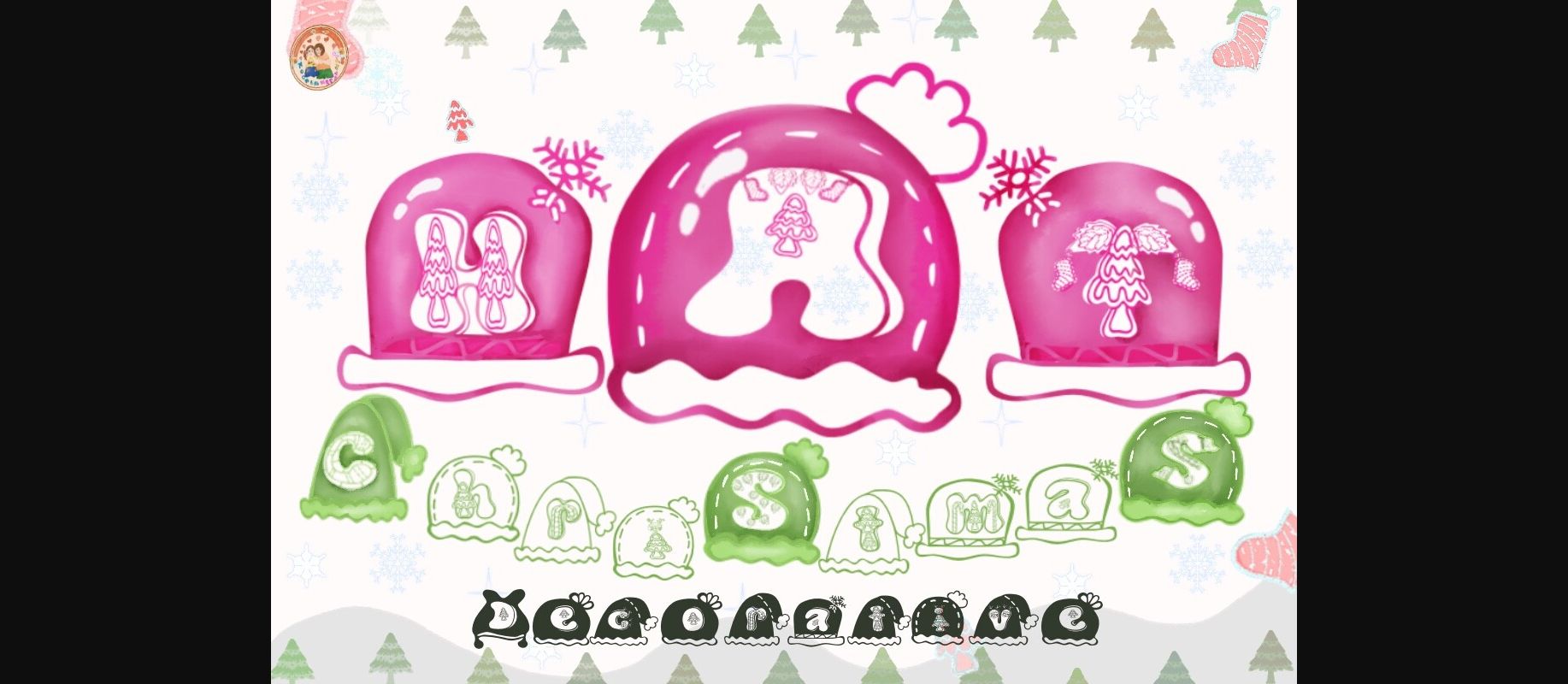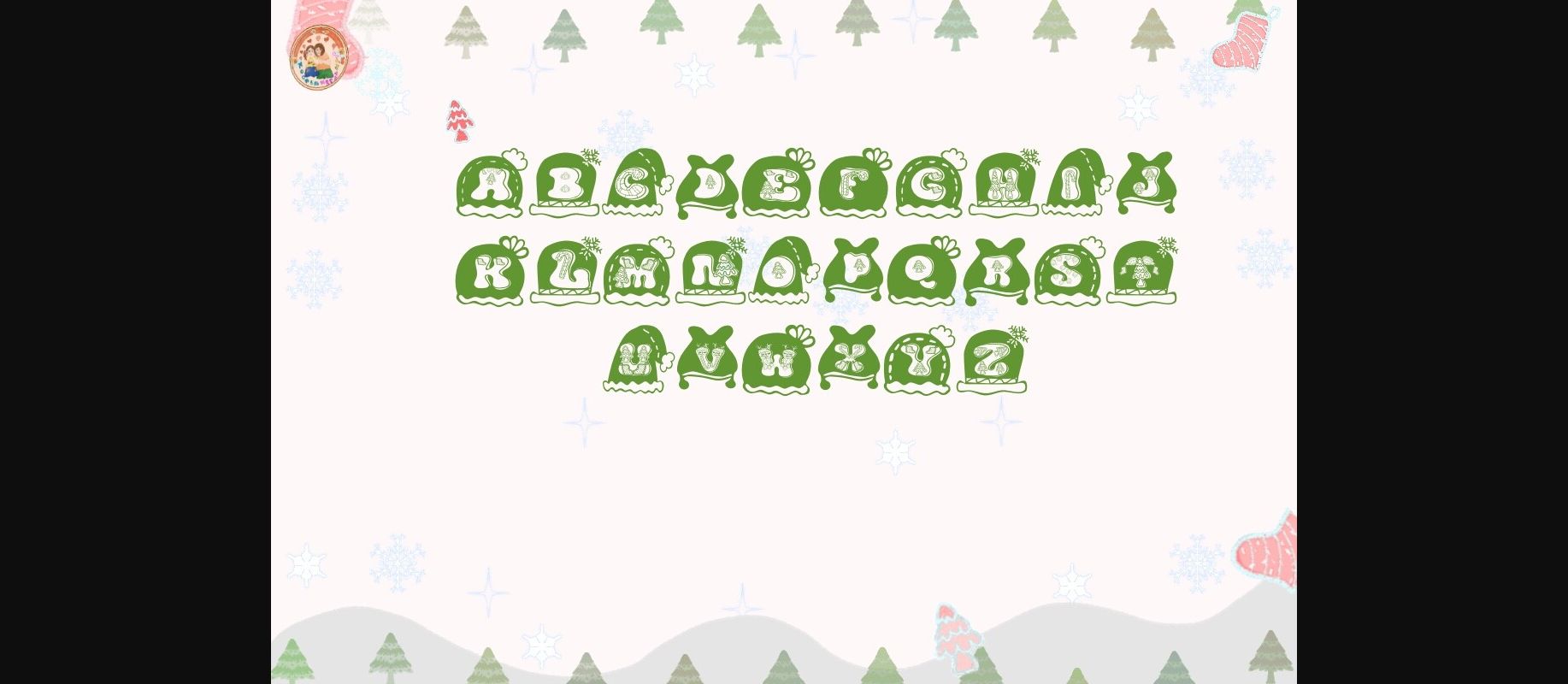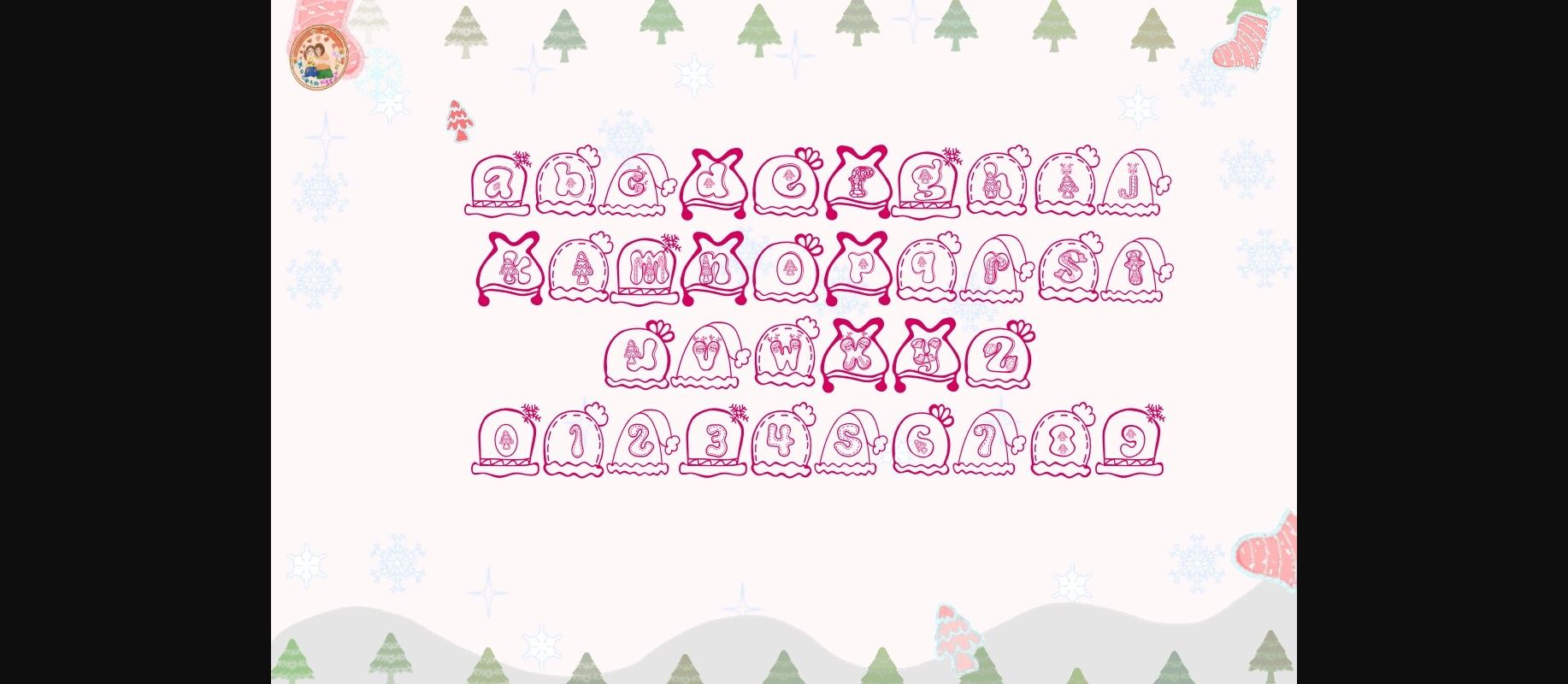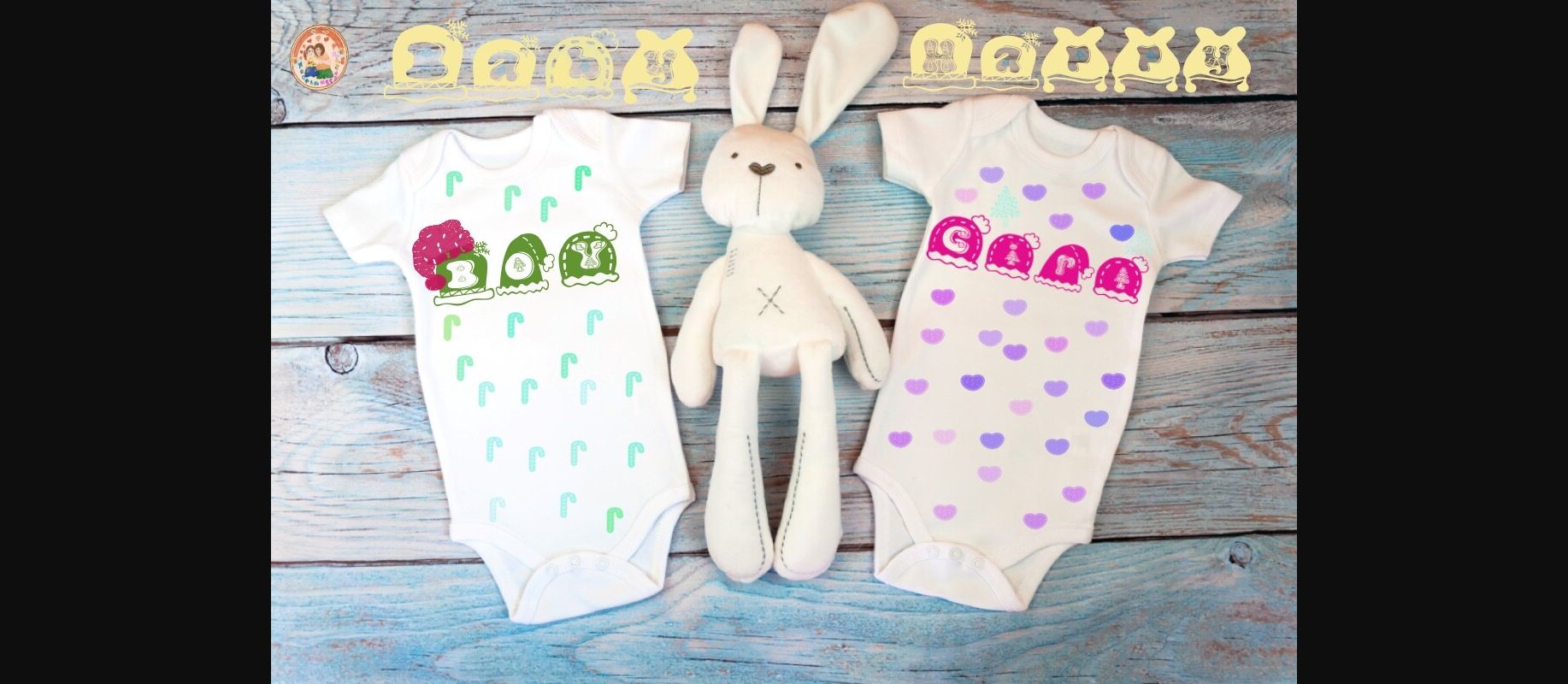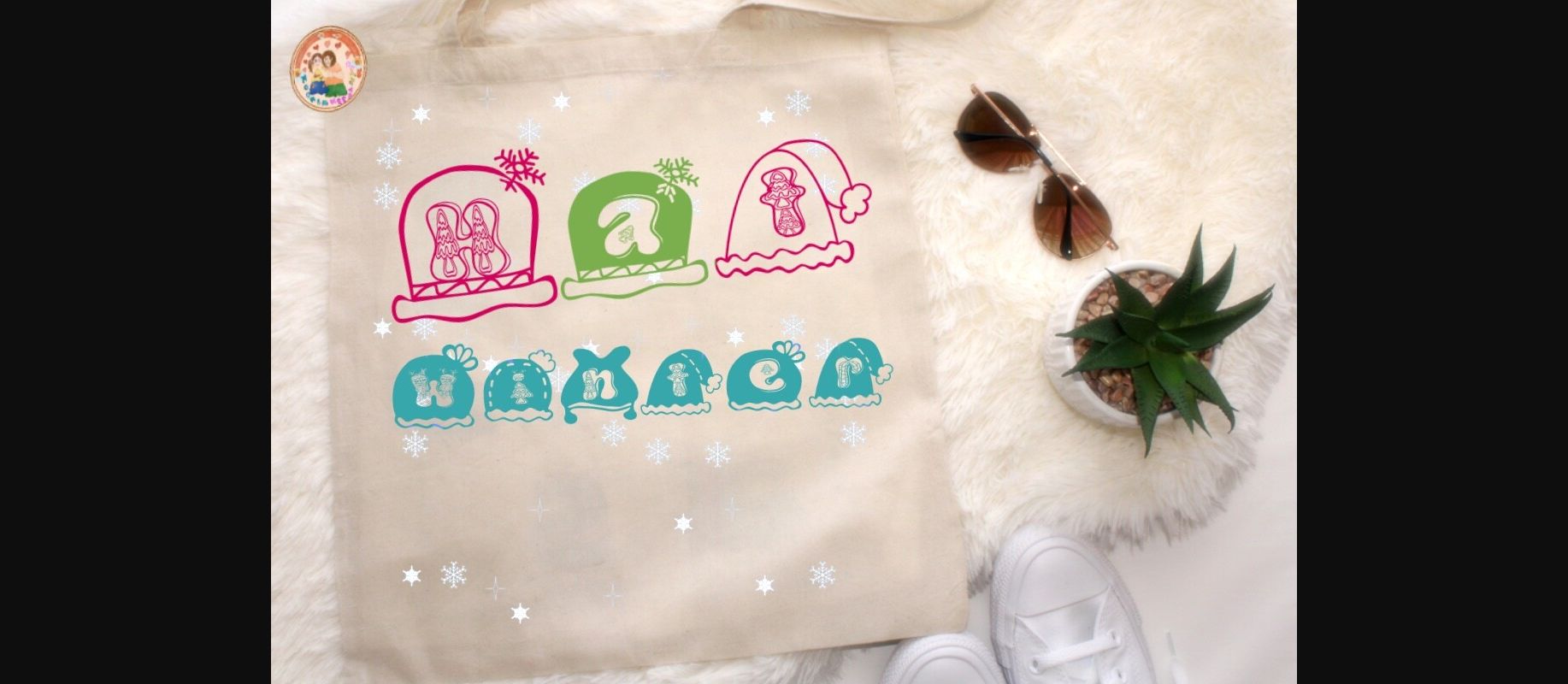
About Hat Christmas Font
Hat Christmas Decorative Fonts in 2 Styles that Cute. Fall with use it to create gorgeous invitations, beautiful stationary art, eye-catching social media posts, and cute greeting cards. Add this beautiful font to each of your creative ideas, and notice how it makes them stand out.